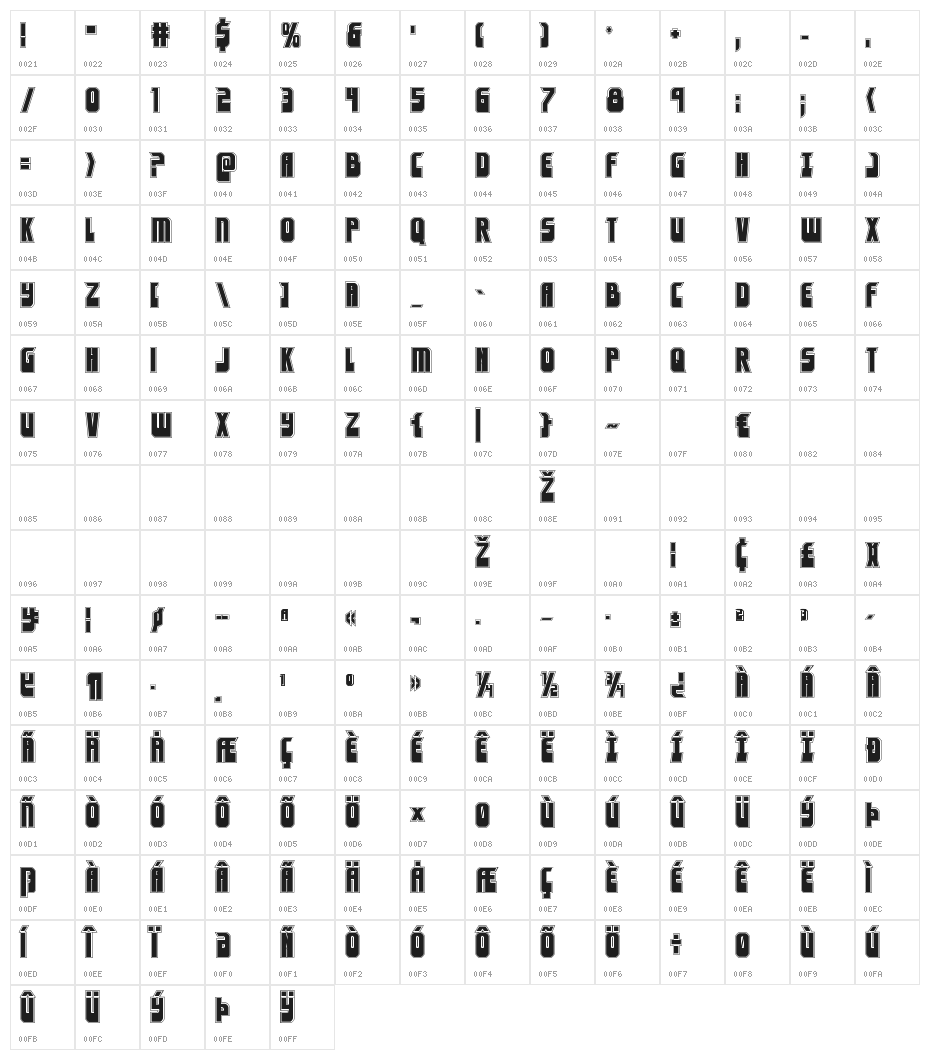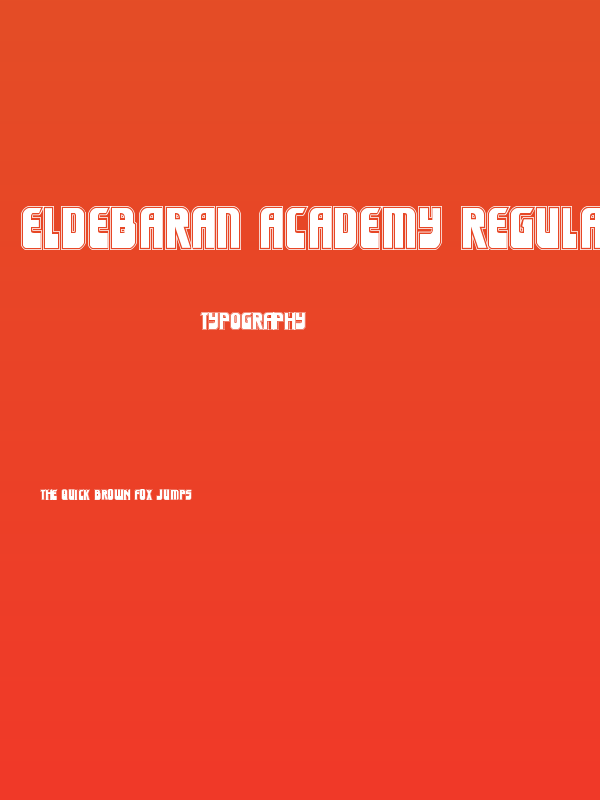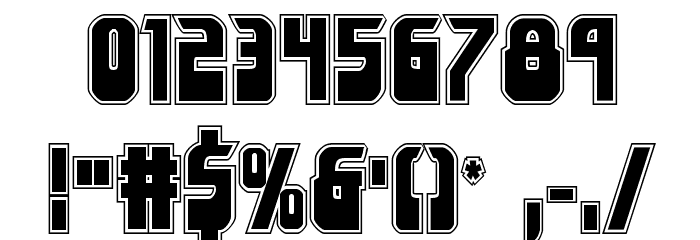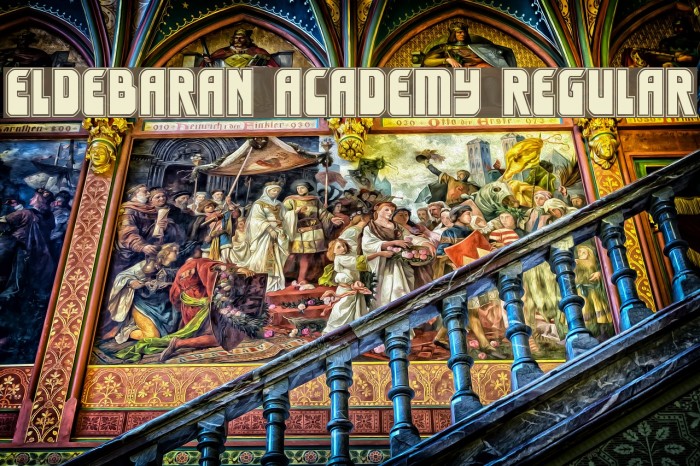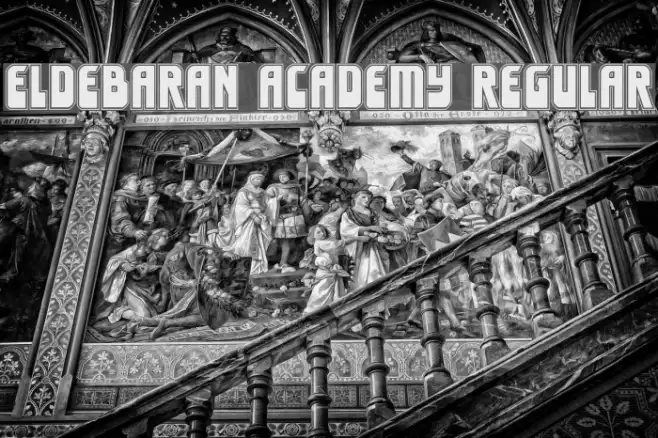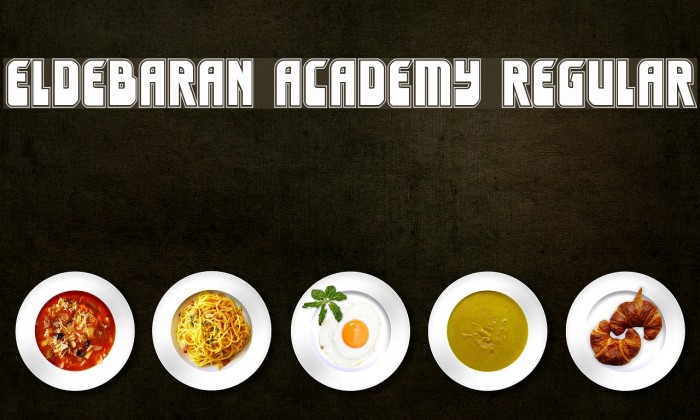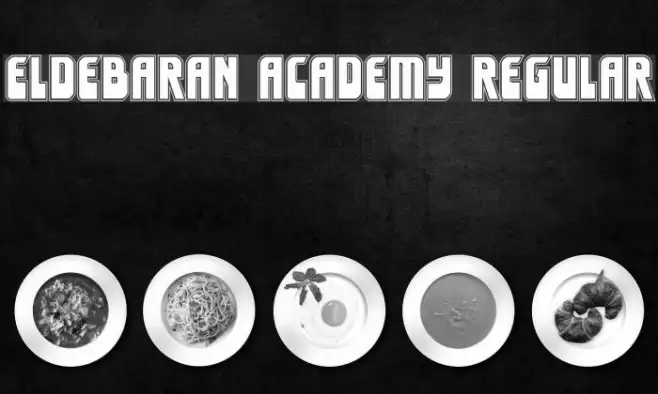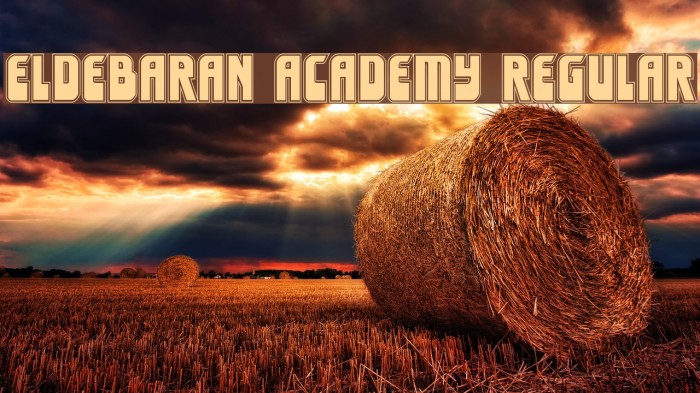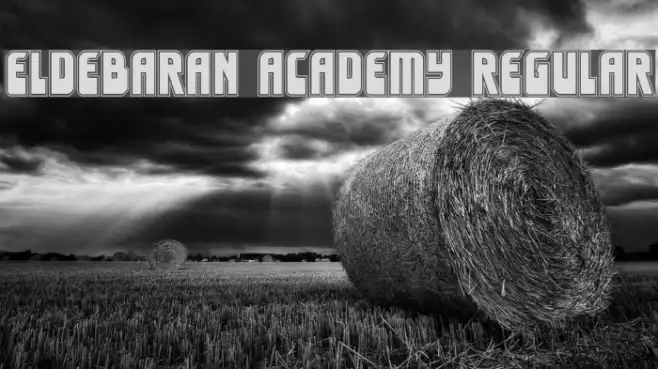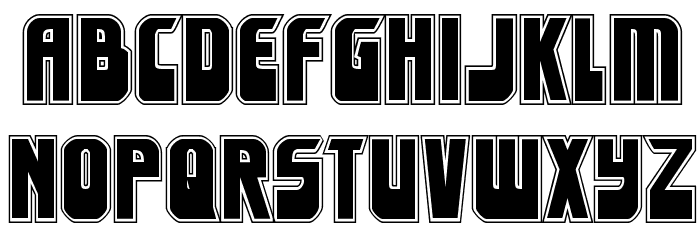
Eldebaran Academy Regular Font
Eldebaran Academy Regular Description
This font features a bold, geometric design with a strong presence. The characters are constructed with thick, block-like shapes, giving them a robust and impactful appearance. The style is reminiscent of retro or vintage signage, with a modern twist that makes it suitable for contemporary designs. The uppercase and lowercase letters maintain a consistent width, contributing to a uniform look. The numbers and special characters follow the same bold aesthetic, ensuring cohesion across all elements. This font's unique style makes it stand out, making it ideal for projects that require a strong visual impact.
| Overall Style | Retro, Modern |
| Proposed Projects | Ideal for posters, logos, branding, and headlines that require a strong visual impact. |